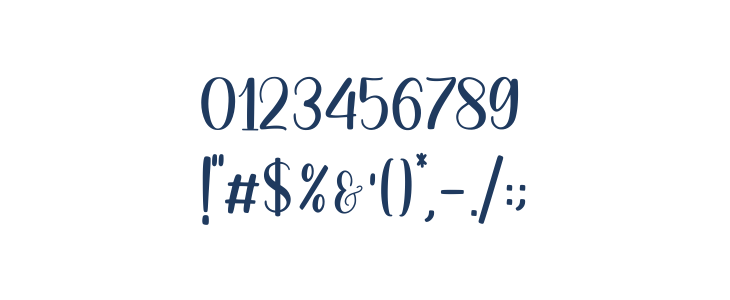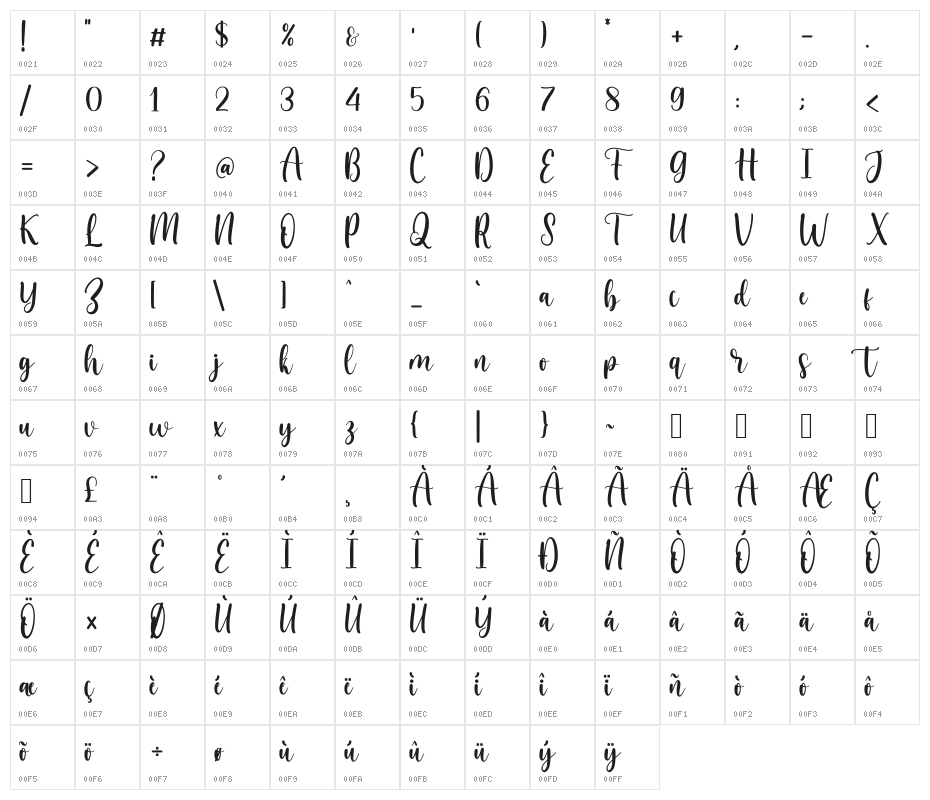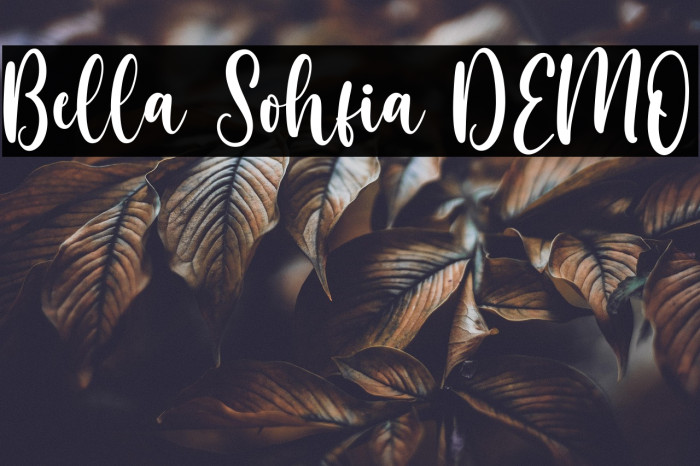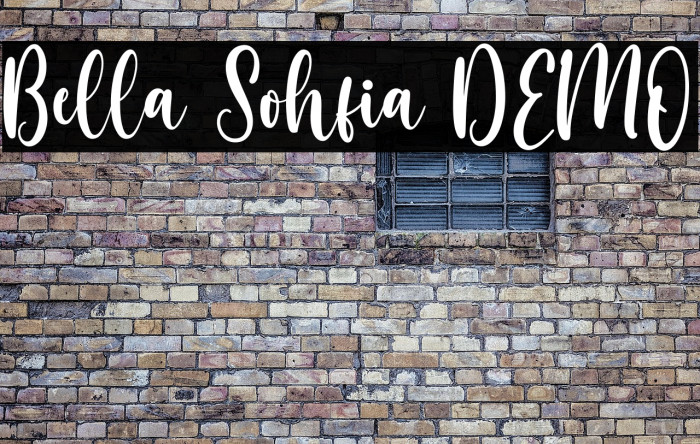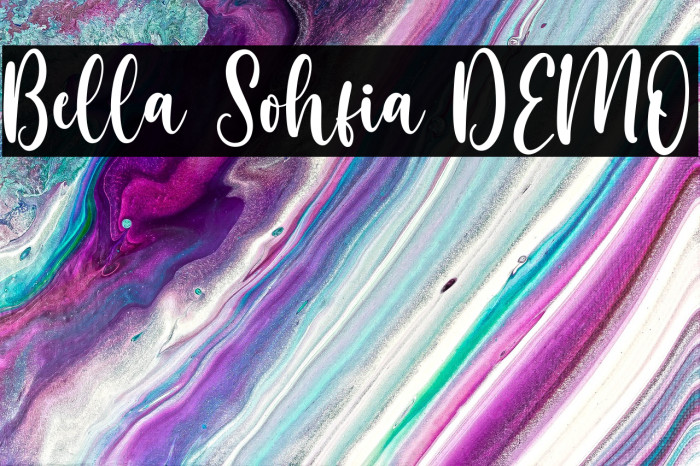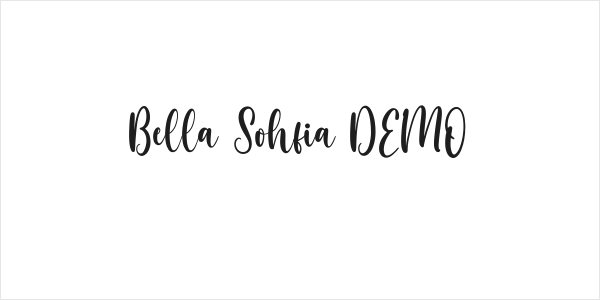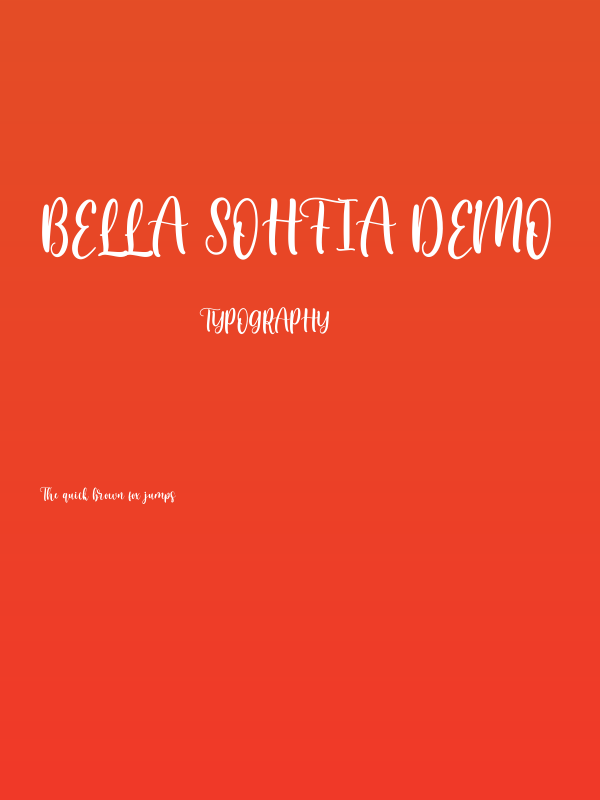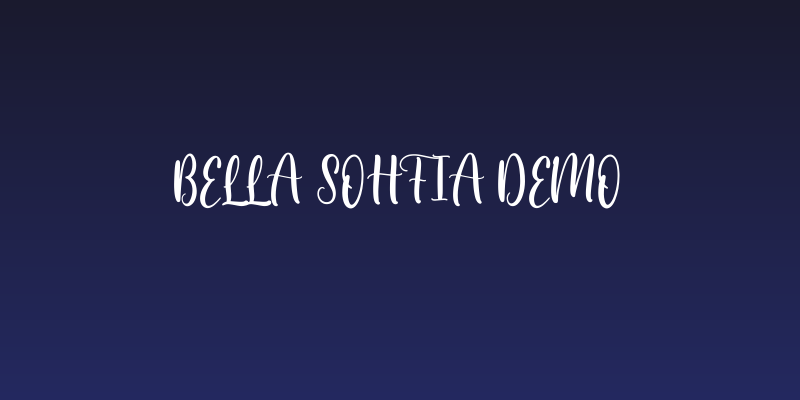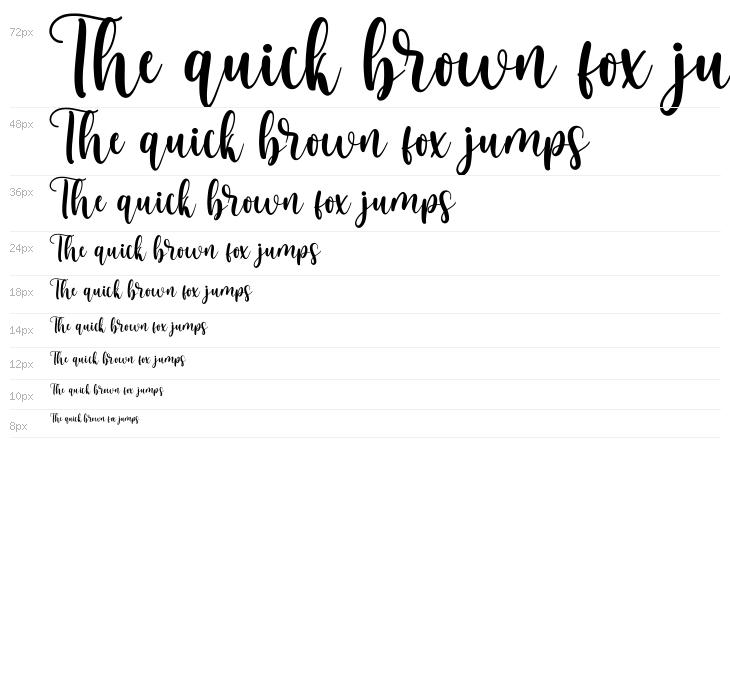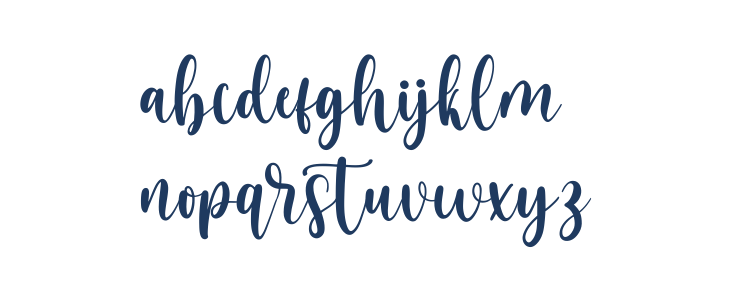
Bella Sohfia DEMO Font
Bella Sohfia DEMO Description
This font features a lively and dynamic script style with a handwritten appearance. The letters are fluid and connected, showcasing a playful yet elegant aesthetic. The uppercase letters are bold and prominent, while the lowercase letters maintain a consistent flow with occasional flourishes. The numerals are clear and easy to read, matching the overall style of the alphabet. Special characters are thoughtfully designed to complement the script, adding versatility to the font. The strokes vary in thickness, providing a medium contrast that enhances readability while maintaining a decorative flair.
Use CaseLogos, Invitations, Social Media
Proposed ProjectsIdeal for wedding invitations, greeting cards, branding, and social media graphics.